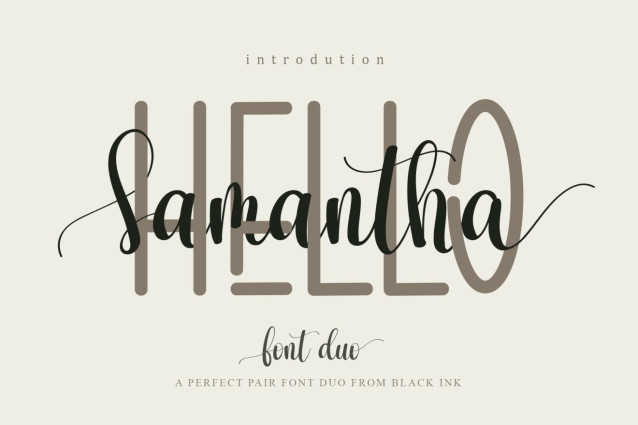
Hello Samantha Script Font
Hello Samantha Script Font consists of two fonts designed to complement each other perfectly. Together or apart, these fonts are ideal for adding a chic and cheery touch to your crafts. Hello Samantha is perfect for branding projects, logo, wedding designs, social media posts, advertisements, product packaging, product designs, label, photography, …